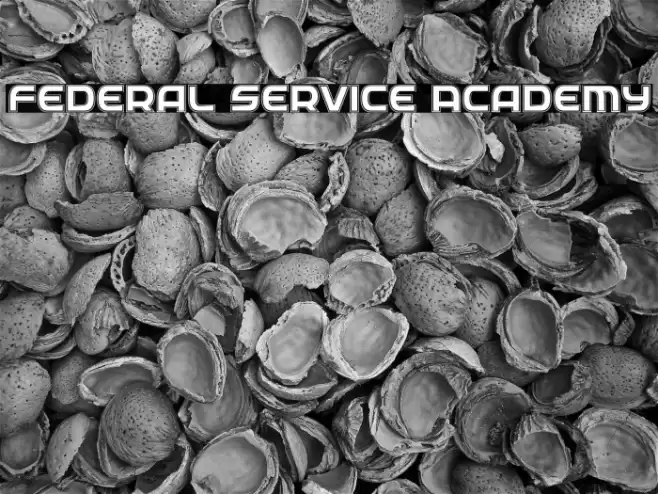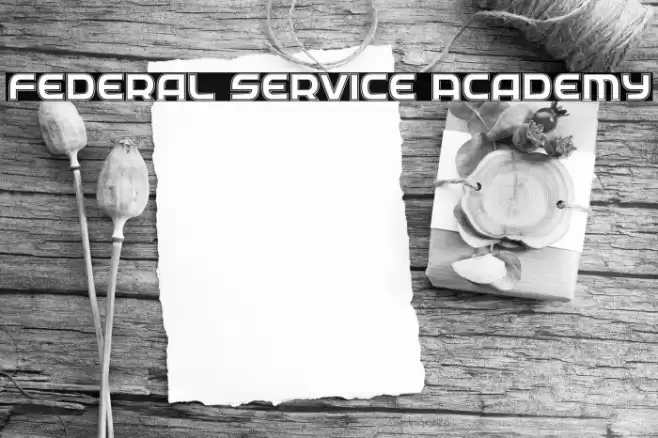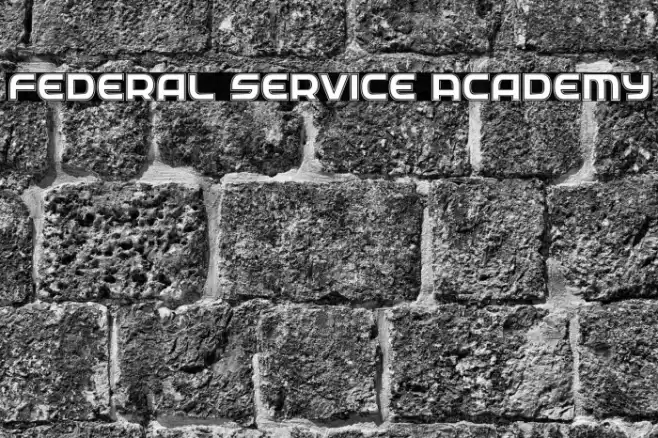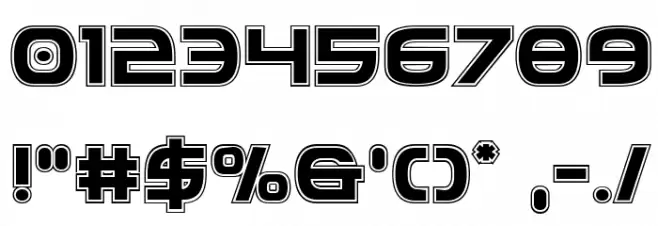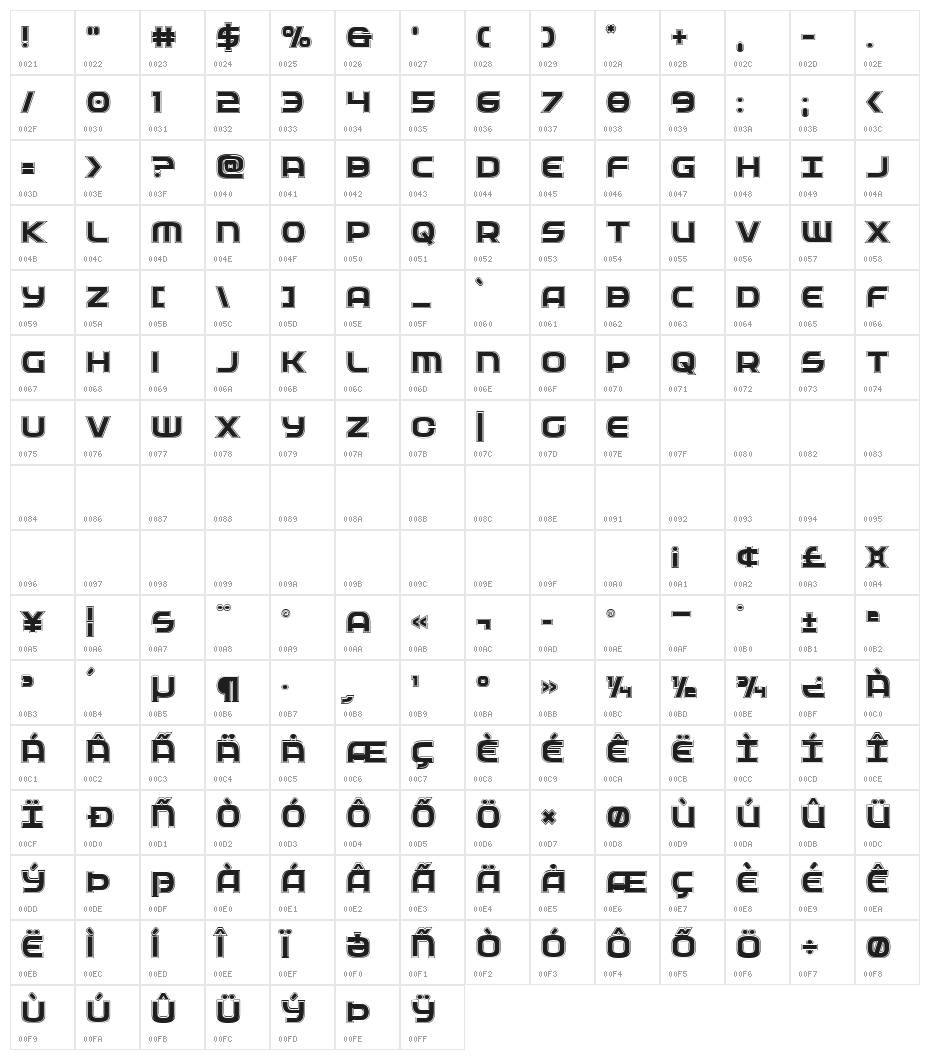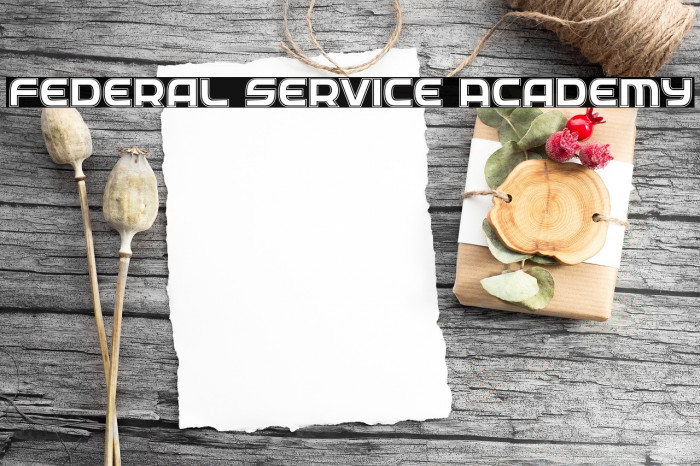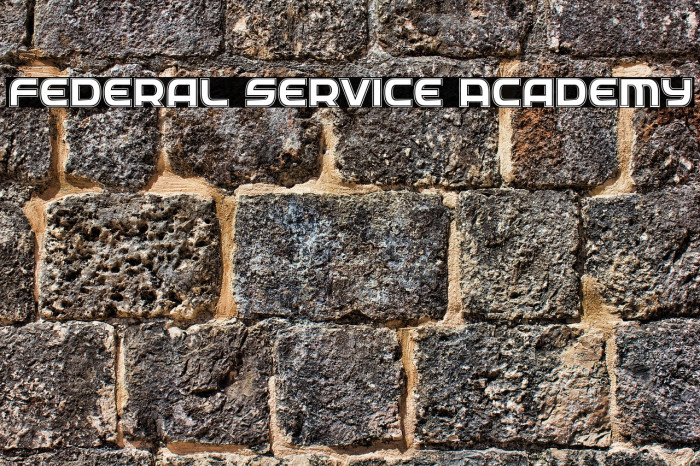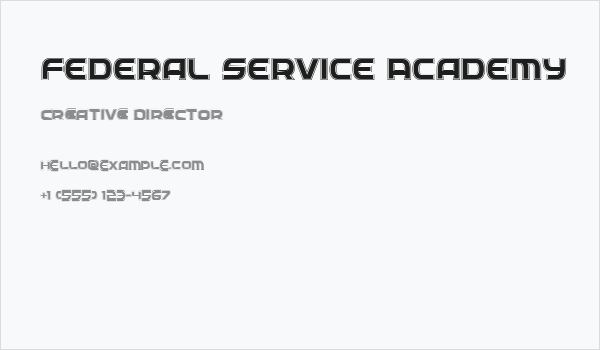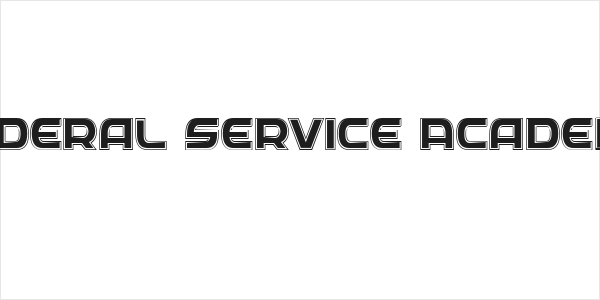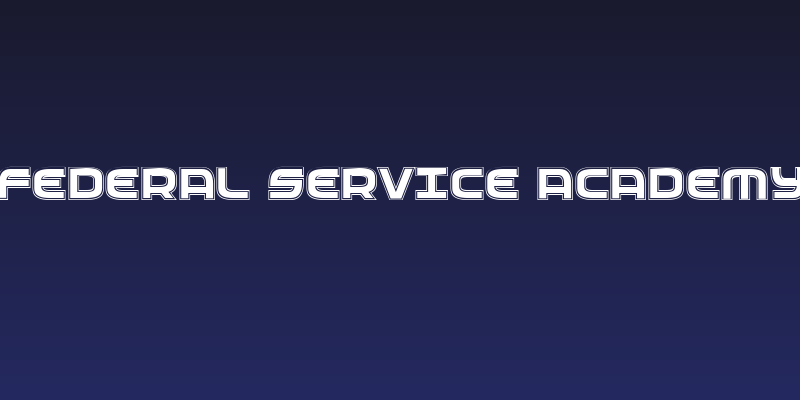
Federal Service Academy Font
Federal Service Academy Description
This font features a bold, futuristic design with a distinct outline style. The characters are uppercase and have a geometric, block-like appearance, giving them a strong and impactful presence. The font's design is consistent across all letters and numbers, with a uniform stroke width that enhances its modern aesthetic. The special characters maintain the same bold outline, ensuring cohesion throughout the set. This font is ideal for projects that require a contemporary and eye-catching look.
- Proposed Projects: Ideal for branding, posters, video game titles, and sci-fi themed projects.